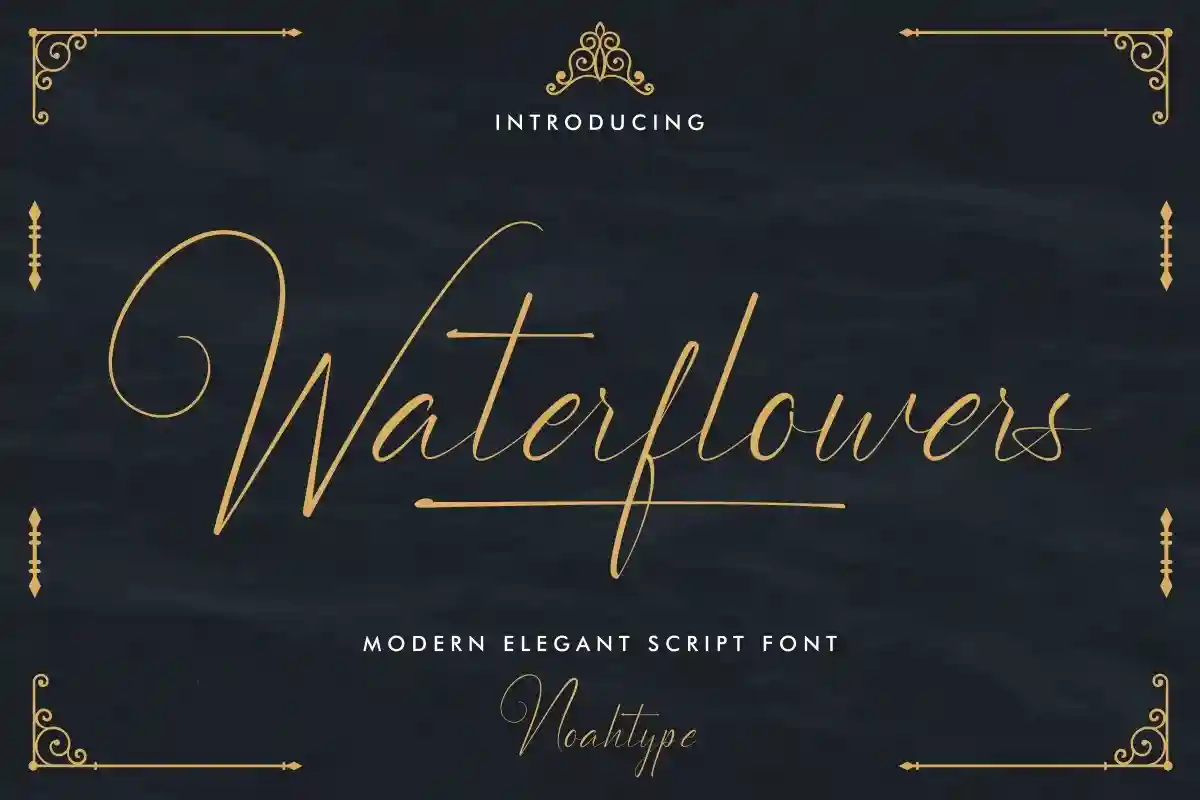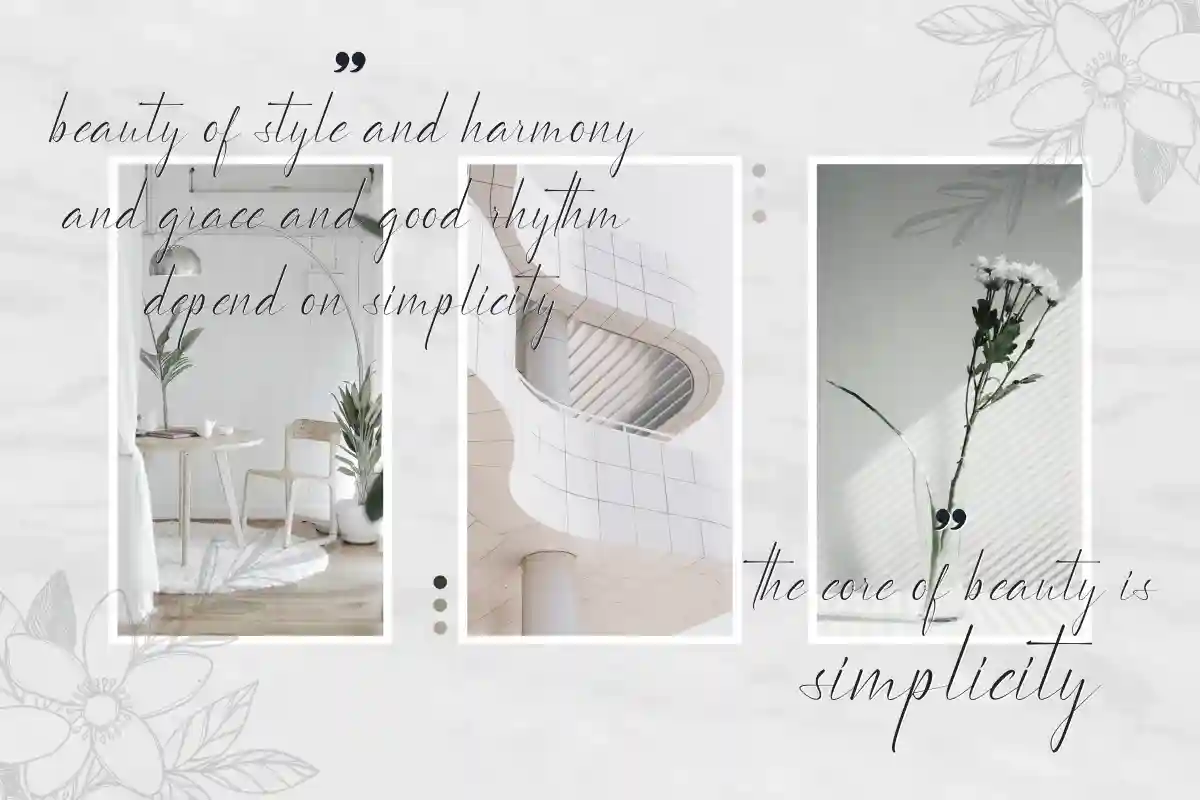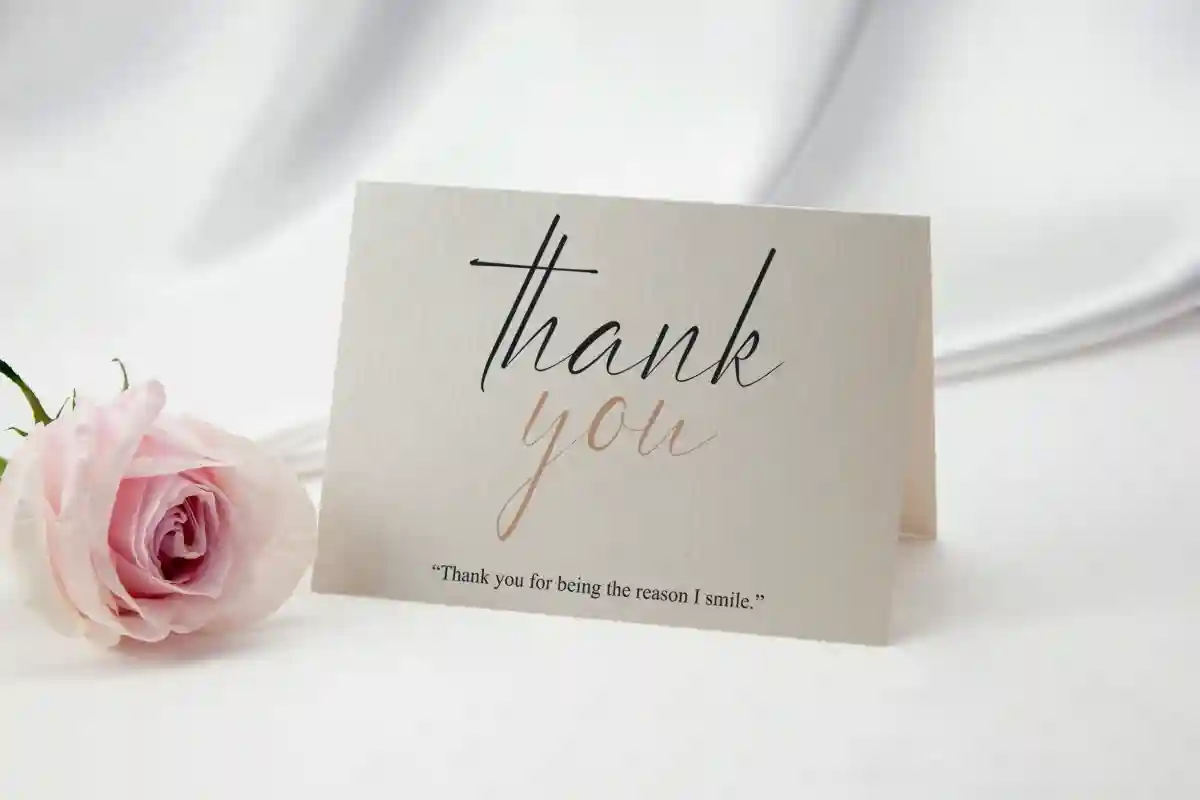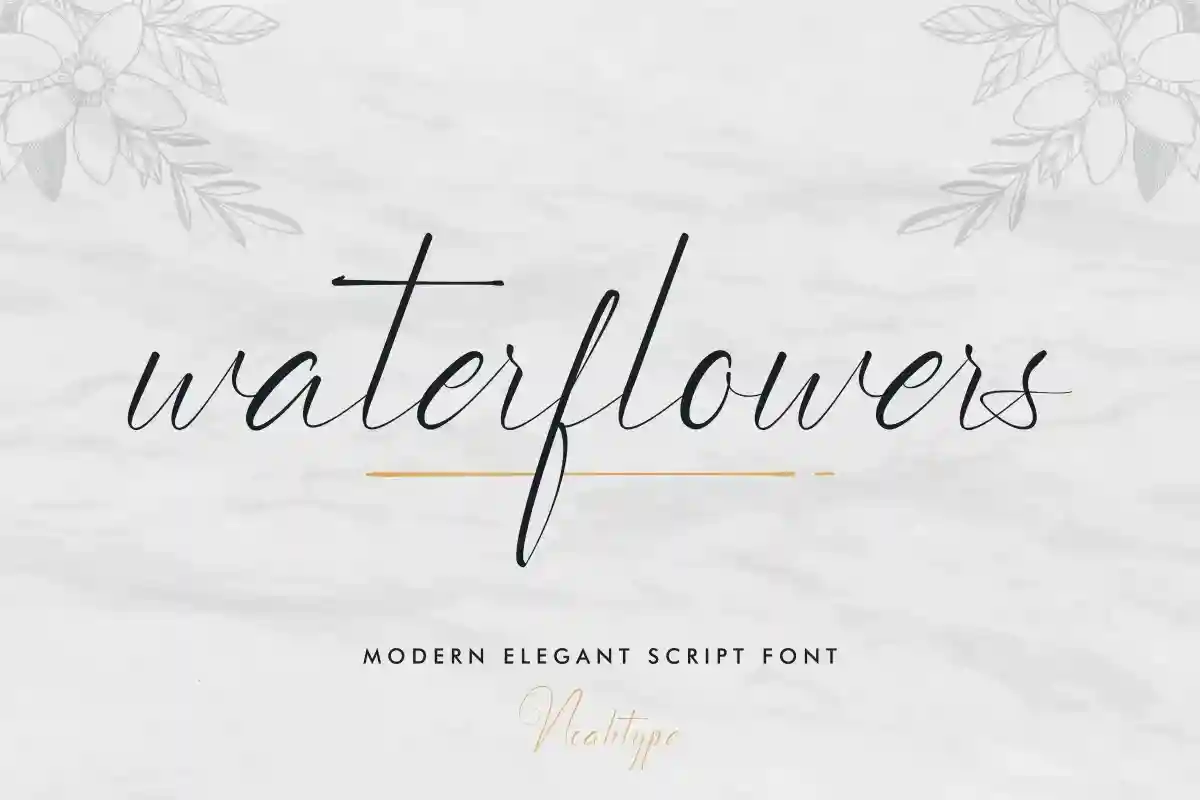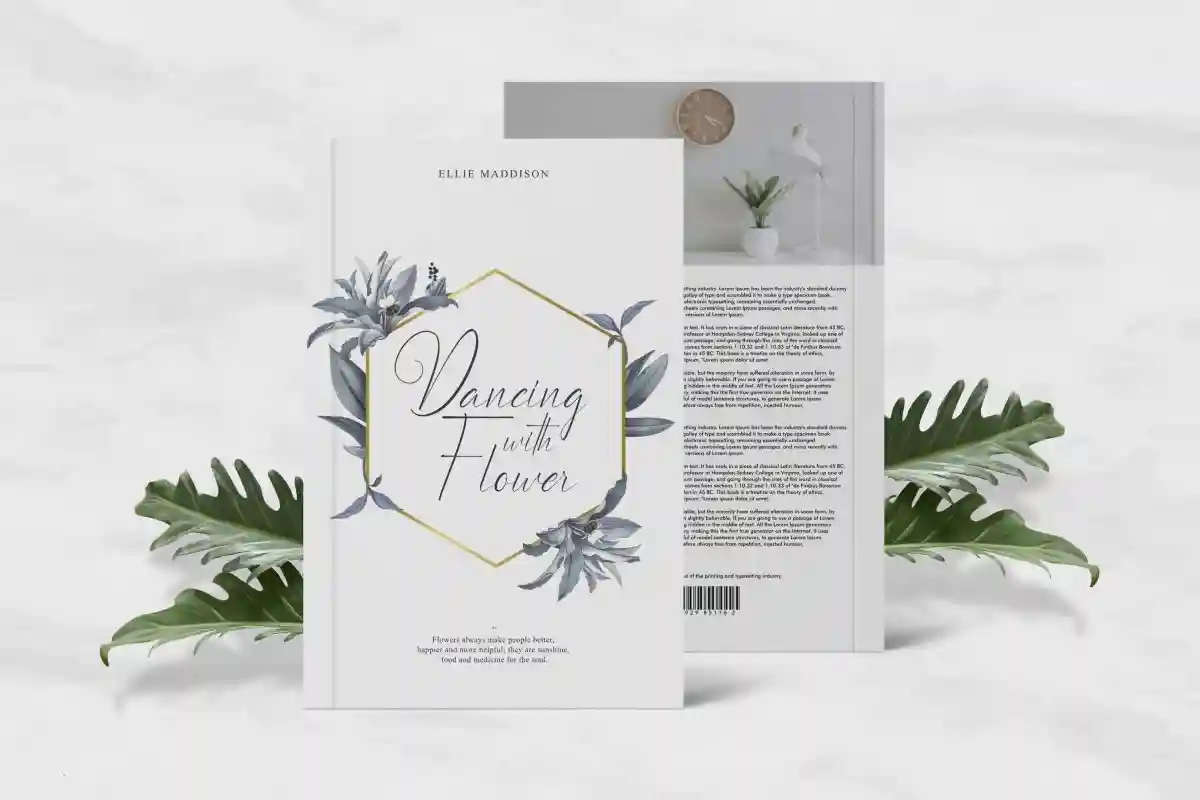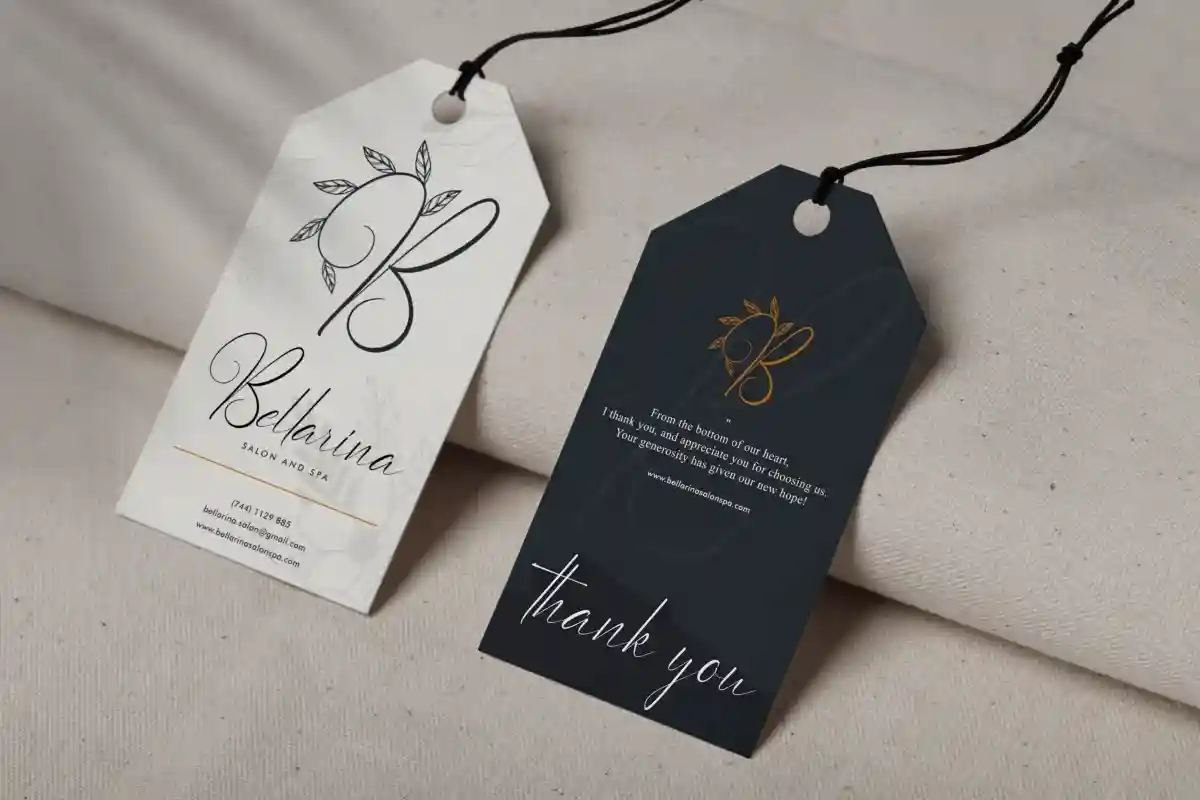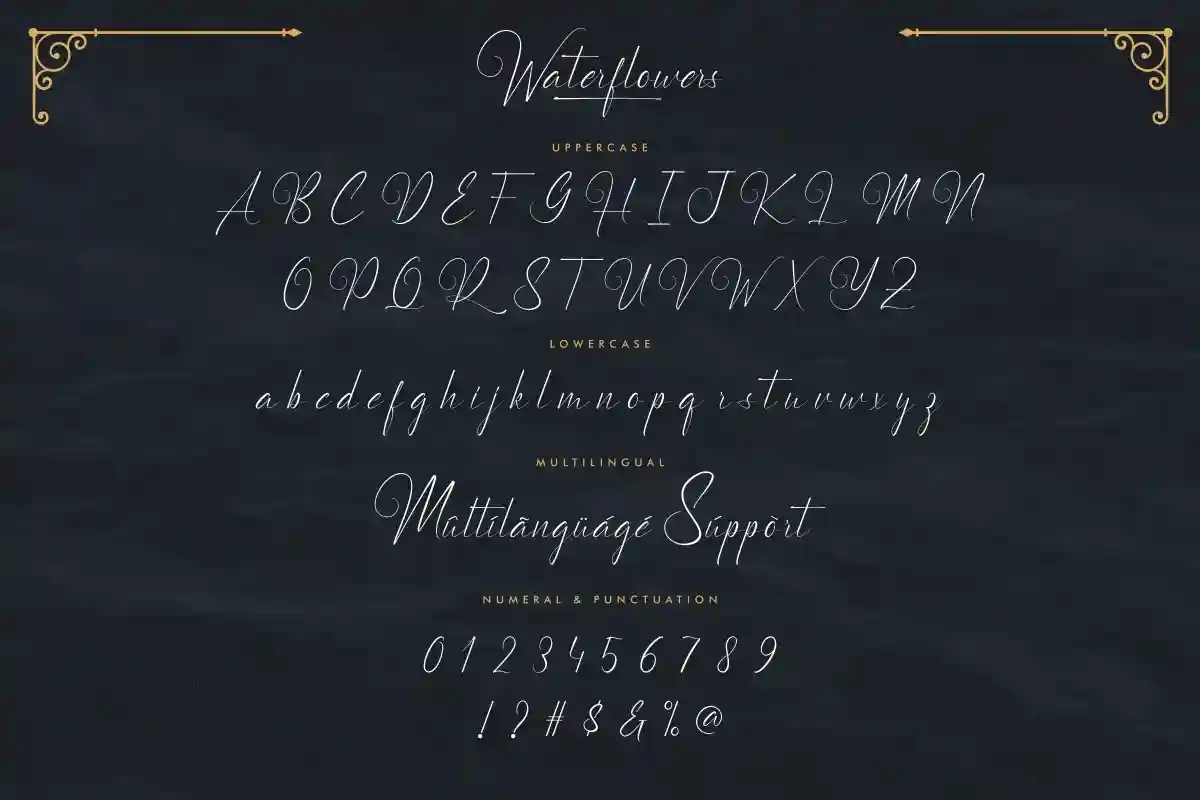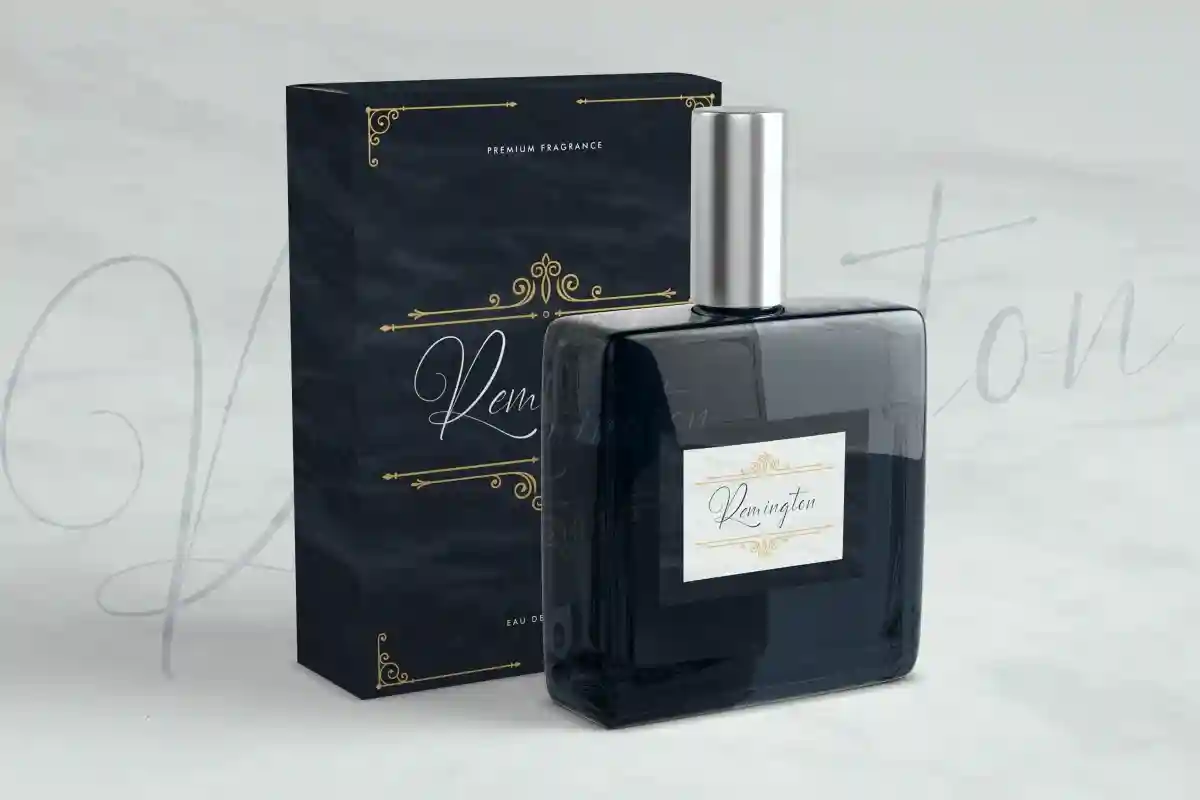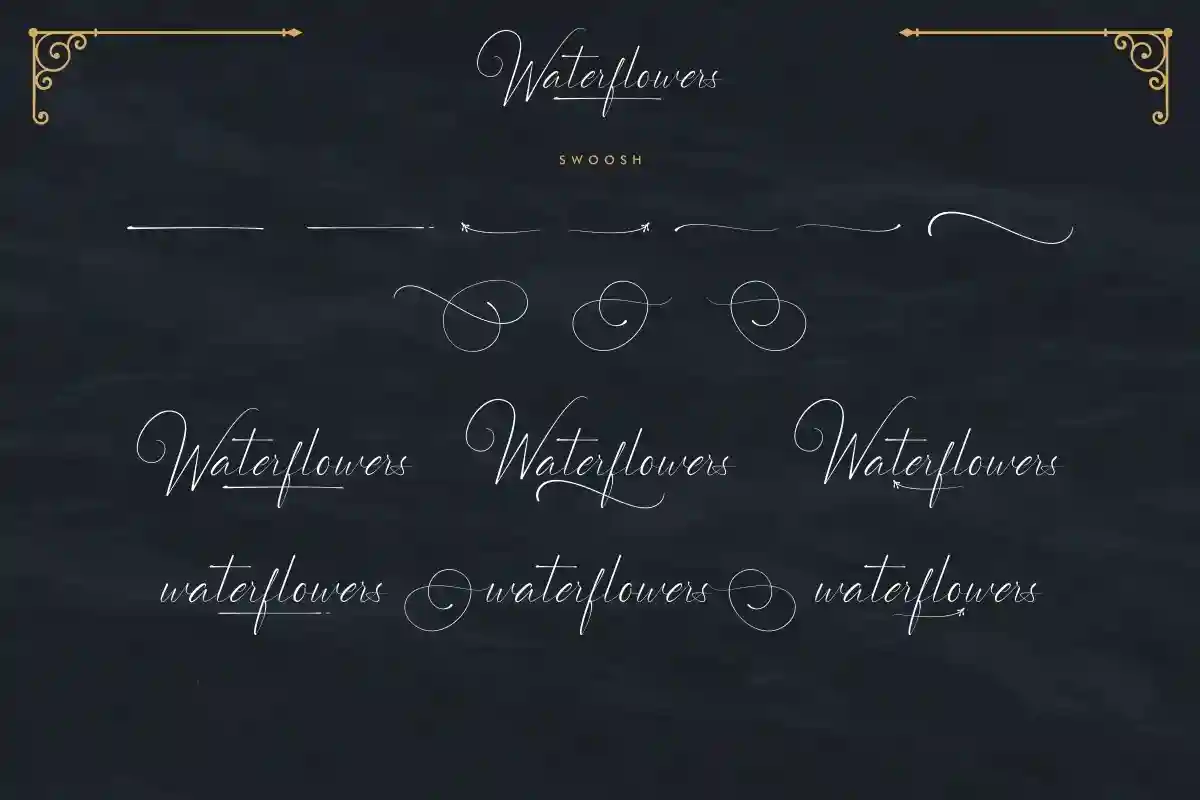
Waterflowers is an elegant calligraphy font script with sophisticated characters , stylish swash and gorgeous alternates. This is perfect for invitation calligraphy, luxury branding, fashion promotions, song tittle, and many more. This font is crafted carefully in every its single scratch, created to look as close to a natural handwritten script so that it can create the perfect combination on each glyph.
When we make this font, we really want to create a touch that is so free-flowing that it gives a natural impression on its use later. For example, if you want letter ‘s’ that has a flow sketch with letter ‘t’, you can find it in ‘st’ ligature glyph (just type in the text form below for trying). This awesome script is for anyone who are needing of elegance and stylish for their designs.
Waterflowers Font includes full set of Uppercase and Lowercase Basic Characters, Numerals and Punctuation. Also it contains ligatures and alternates characters to perfectly make natural calligraphy look that add more beautiful and aesthetic fonts to perfect your extraordinary project. Waterflowers will be awesome for wedding, engagement, branding, invitations, florist, hair stylish, makeup artist, event organizer, movie, music, festival, promotions, social media etc
Elegant and natural handwritten style
Smooth curves and graceful details
Ideal for weddings, branding, and social media
Supports multiple languages